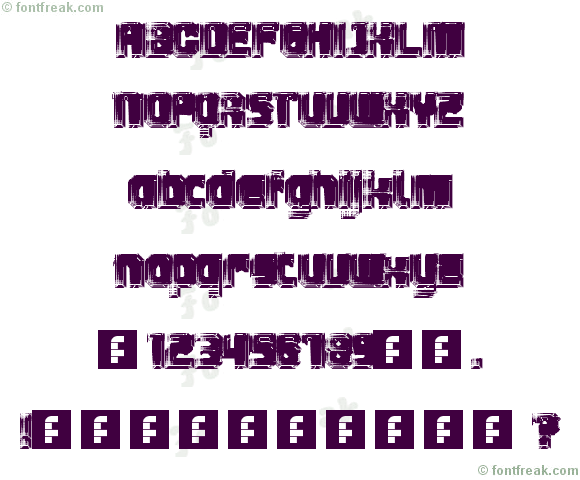
Bas Relief Regular
About Bas Relief
Introducing the Bas Relief font by Minimum, a stunning display typeface that combines elegance with a touch of artistic flair. This font, released in 2009, is classified as a decorative typeface, perfect for projects that require a unique visual impact. The Bas Relief font features a striking design characterized by its bold stroke weight and subtle contrasts, creating a three-dimensional appearance reminiscent of carved stone. The spacing is meticulously crafted, ensuring that each letter stands out while maintaining harmony within words. The decorative elements of this font evoke a sense of sophistication, making it an ideal choice for a variety of creative applications.
The Bas Relief font is exceptionally versatile and can be used in numerous contexts. It is well-suited for wedding invitations, where its elegant design adds a touch of romance. Additionally, this font shines in movie posters, where its dramatic flair can capture the essence of the film. Restaurant menus can also benefit from the Bas Relief font, as it can elevate a dining experience through its stylish presentation. Graphic designers will find it perfect for branding projects, as it creates a memorable identity. Content creators looking to add a distinctive touch to their blogs or social media graphics will appreciate the unique character of this typeface.